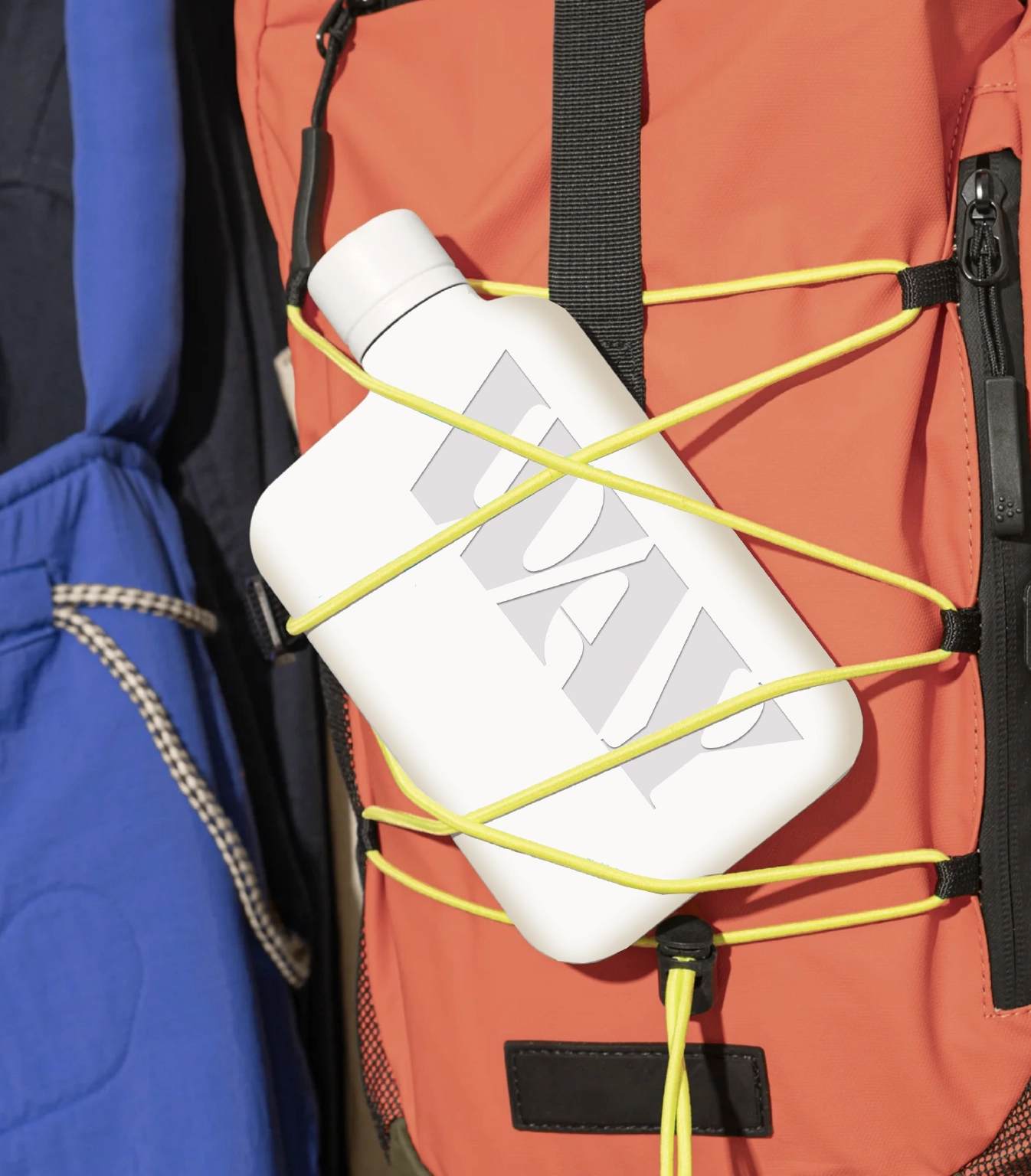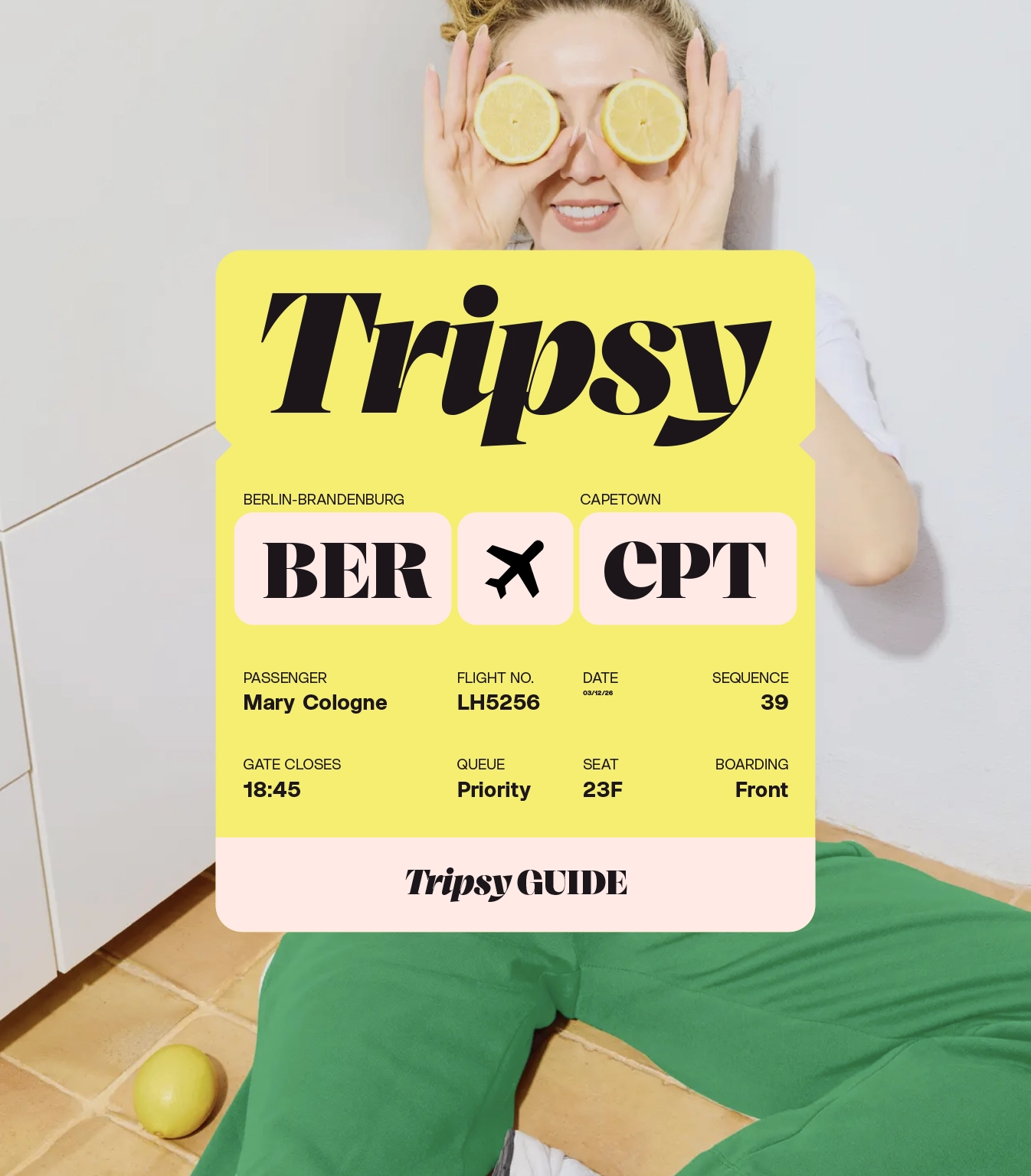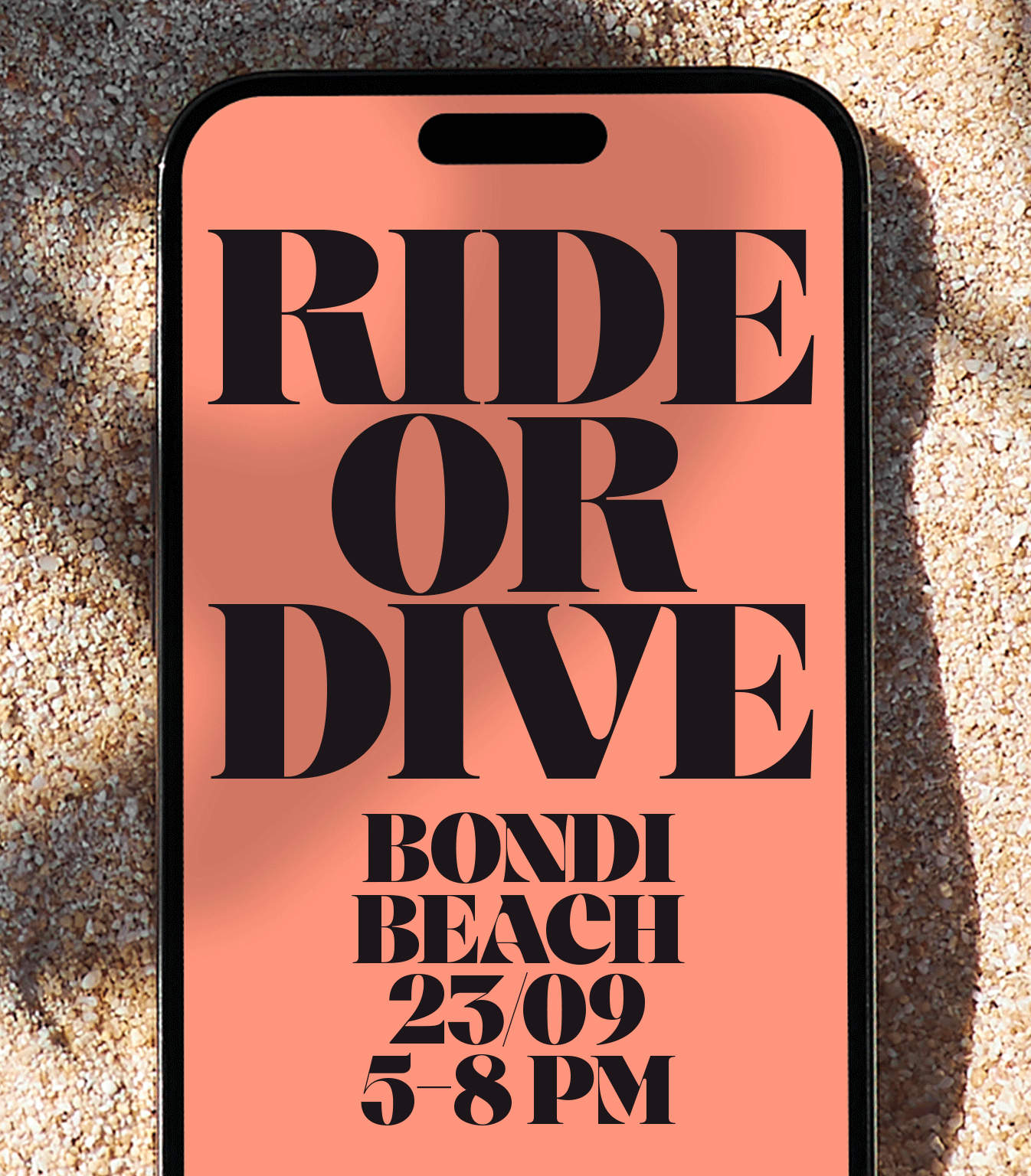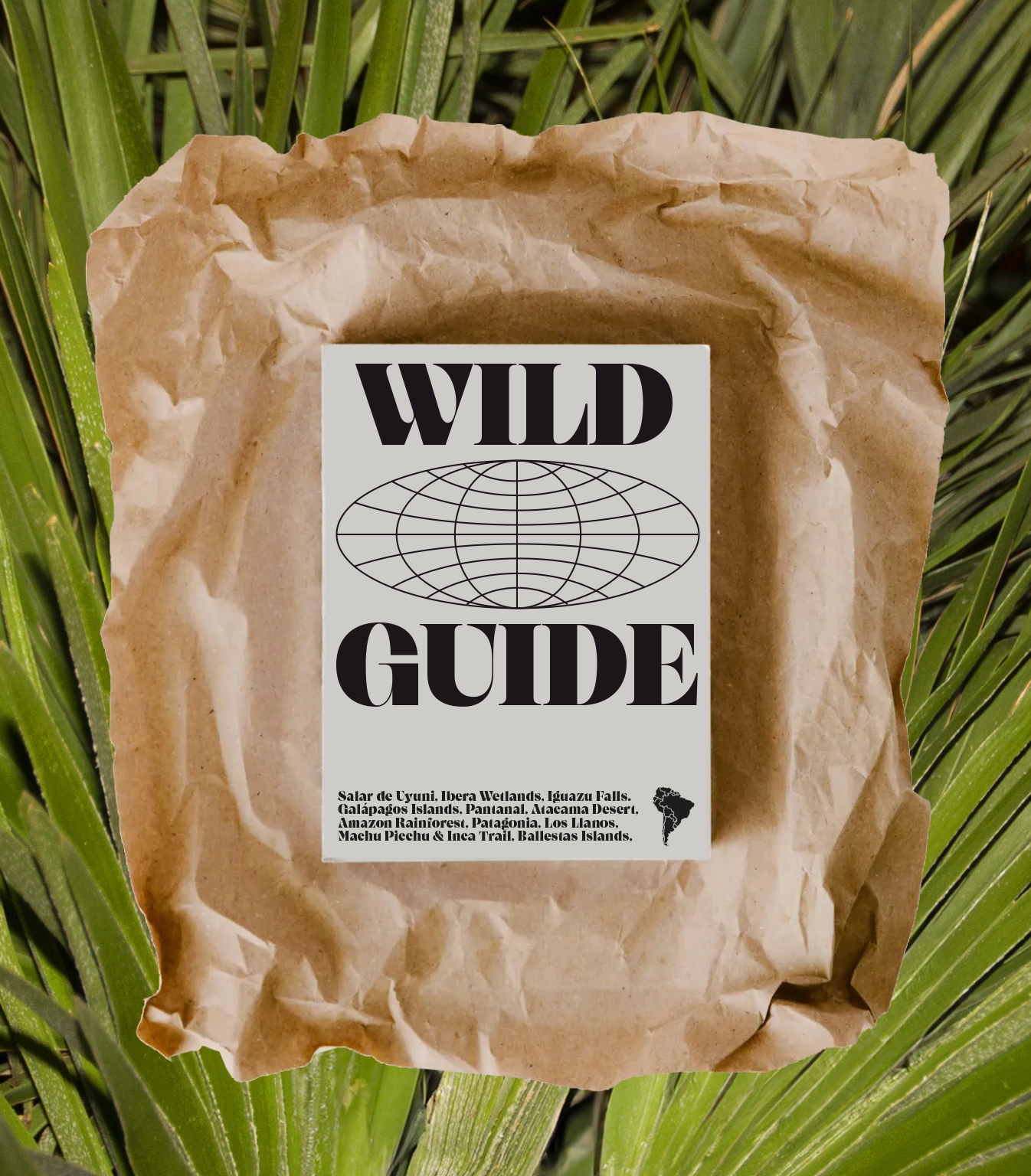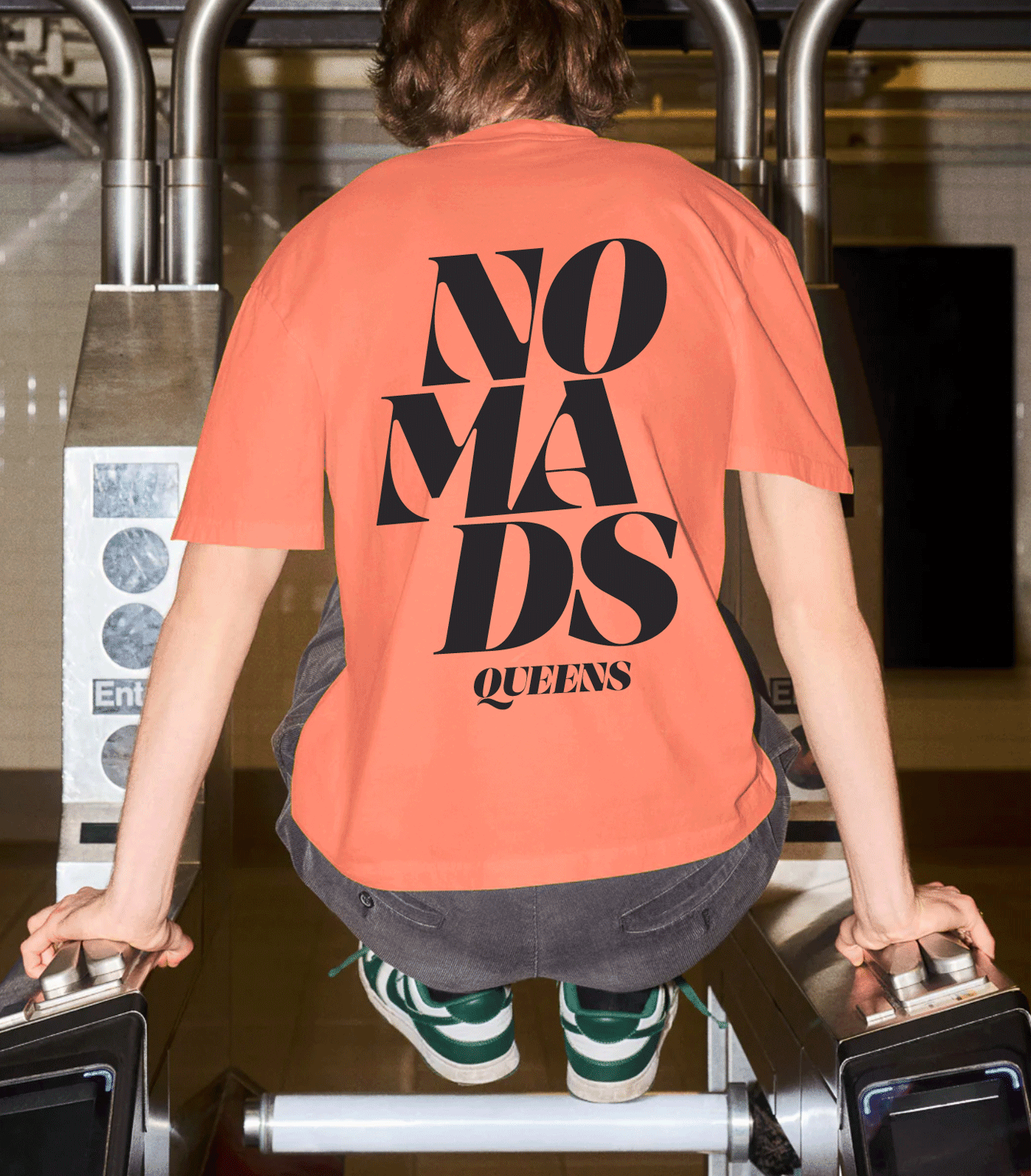
Getaway
A serif typeface that captures the spirit of exploration - elegant and poetic, yet ambitious. The design language of Getaway carries the grace of tradition with a modern, adventurous twist. Designed for storytelling brands and timeless identities, it evokes the allure of memory and discovery. A typeface that invites you to dream. Bon Voyage.